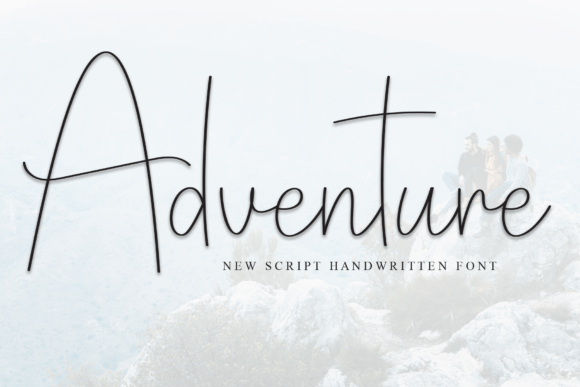
Introducing Adventure Font: The Handcrafted Display Font with a Warm and Approachable Charisma
Are you tired of using the same old fonts for your design projects? Do you want to add a touch of personality and whimsy to your creations? Look no further than Adventure Font, a handcrafted display font that exudes warmth and approachability. With its delightful and playful vibe, this font is perfectly suited for crafting wedding invitations, personalized cards, or any design project requiring an infusion of fun.
The Charm of Handcrafted Typography
Adventure Font is a sweet and charming font that gives a delightful touch to your creative needs. Its handcrafted nature makes it stand out from the crowd, with a unique and endearing charm that is sure to captivate your audience. Whether you’re a designer, crafter, or DIY enthusiast, this font is sure to inspire your creativity and take your projects to the next level.
Perfect for Wedding Invitations and Personalized Cards
Wedding invitations and personalized cards are special occasions that deserve a font that is just as special. Adventure Font is the perfect choice for these types of projects, with its playful and romantic vibe that is sure to set the tone for a memorable event. Imagine creating beautiful wedding invitations that showcase your love story in a unique and stylish way. With Adventure Font, you can add a touch of elegance and sophistication to your designs, making them truly unforgettable.
Bringing Fun and Personality to Your Designs
Adventure Font is not just limited to wedding invitations and personalized cards. Its playful and fun nature makes it perfect for any design project that requires a dash of personality. Whether you’re creating posters, flyers, or social media graphics, this font is sure to add a touch of whimsy and creativity to your designs. Imagine turning your ordinary text into a captivating and memorable design experience with the enchanting allure of this warm handwritten font.
Key Features of Adventure Font
- Handcrafted with love: Each letter has been carefully crafted to give it a unique and personal touch.
- Warm and approachable charisma: This font exudes a sense of warmth and friendliness, making it perfect for designs that require a personal touch.
- Playful and fun: Adventure Font has a delightful and playful vibe that is sure to add a touch of whimsy to your designs.
- Perfect for wedding invitations and personalized cards: This font is ideal for special occasions that require a touch of elegance and sophistication.
Tips for Using Adventure Font
Here are some tips for using Adventure Font to get the most out of this beautiful handcrafted display font:
- Use it for headlines and titles: Adventure Font is perfect for headlines and titles, where its playful and fun nature can really shine.
- Pair it with other fonts: Experiment with pairing Adventure Font with other fonts to create a unique and stylish look.
- Use it for branding and packaging: This font is perfect for branding and packaging projects that require a touch of personality and whimsy.
- Experiment with colors and textures: Don’t be afraid to experiment with different colors and textures to add depth and interest to your designs.
Adventure Font is a handcrafted display font that is sure to add a touch of warmth and personality to your design projects. With its playful and fun nature, this font is perfect for wedding invitations, personalized cards, and any design project that requires a dash of whimsy and creativity. Whether you’re a designer, crafter, or DIY enthusiast, Adventure Font is sure to inspire your creativity and take your projects to the next level.